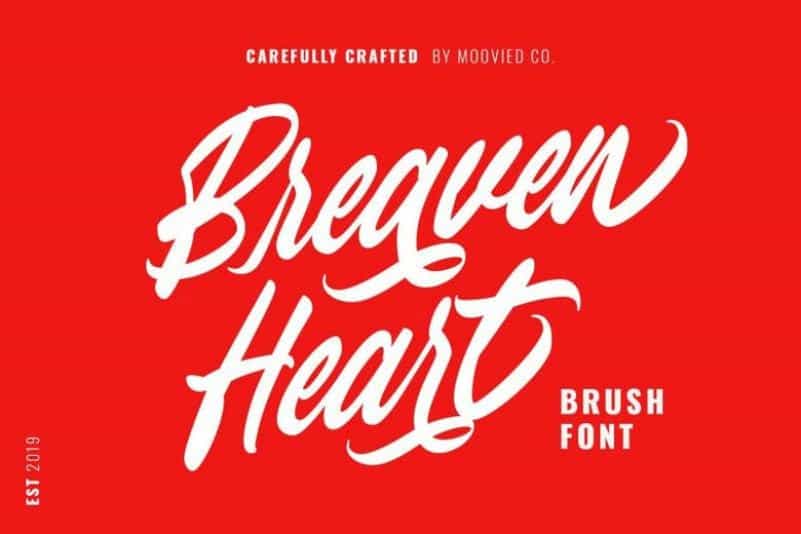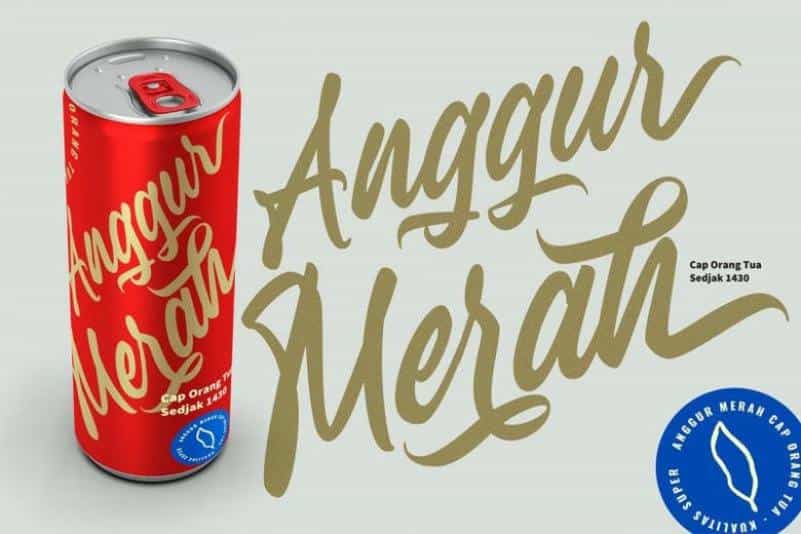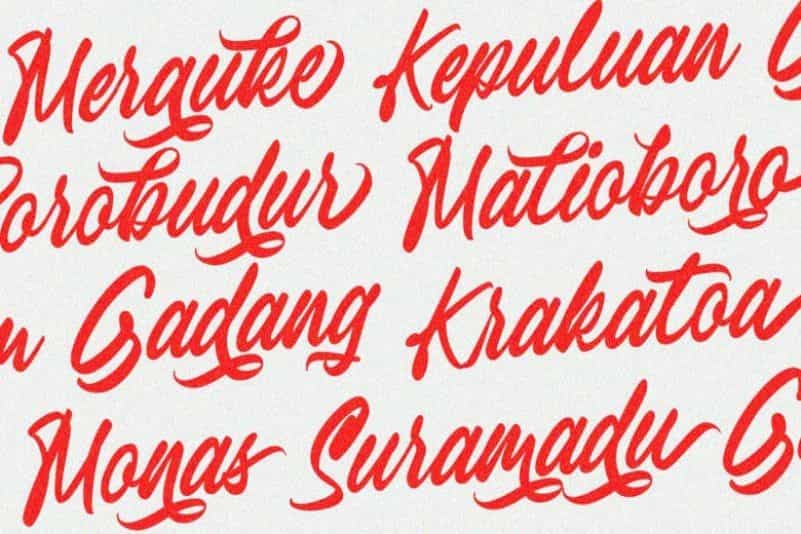
Introducing Bravenheart Font. It was designed and shared by Moovied Co. . The Bravenheart Script is an accurately made script typeface with a stylish and clean handlettering style.